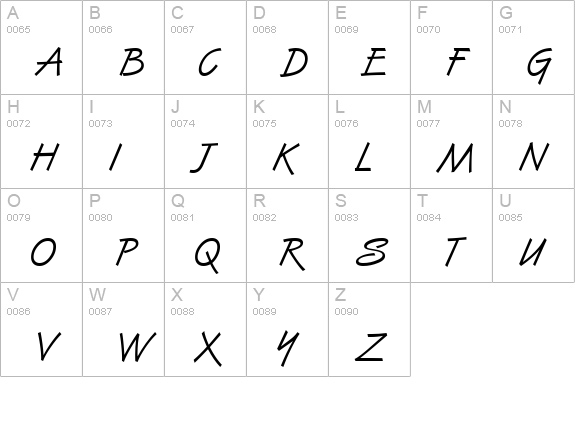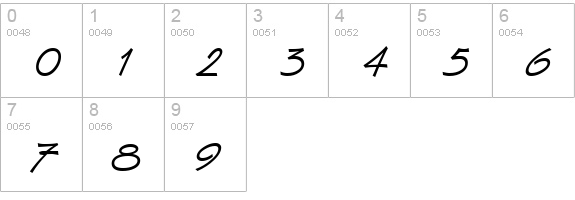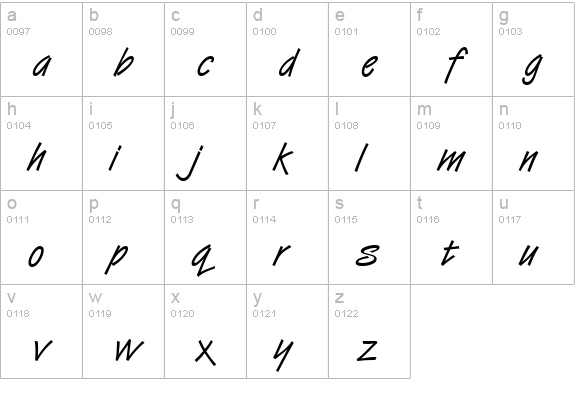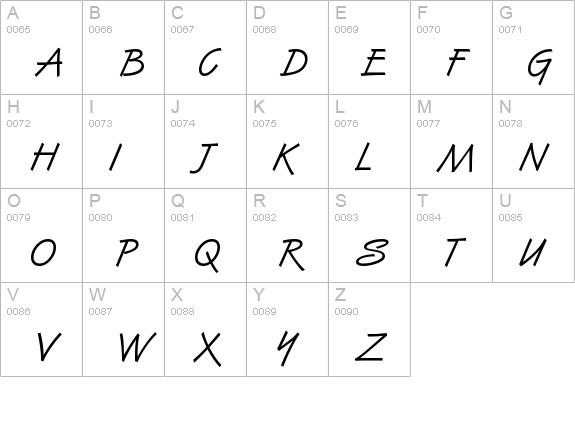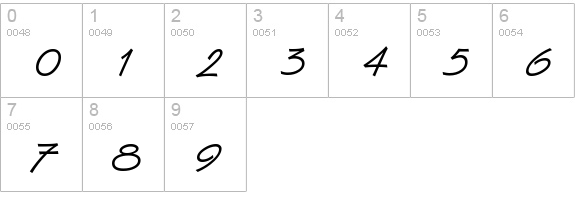
Van Dijk ICG Font Details
Van Dijk ICG is a stunning and versatile font that will add a touch of elegance and sophistication to any design project. With its delicate yet strong letterforms, this font is perfect for both headlines and body text, making it suitable for a wide range of applications. The unique and timeless design of Van Dijk ICG captures attention and creates a lasting impression. Each letter is meticulously crafted with intricate details and graceful curves, resulting in a harmonious and visually appealing typeface. Whether you are designing a logo, creating a website, or working on a print project, Van Dijk ICG will elevate your design to new heights. Its flexibility allows it to adapt to various design styles, from modern and minimalistic to classic and luxurious. One of the best parts about Van Dijk ICG is that it is freely available to download at FontsMarket.com. This means that you can easily access this remarkable font and incorporate it into your designs without any cost. The accessibility of Van Dijk ICG ensures that designers of all levels can benefit from its beauty and functionality. Don't miss out on the opportunity to enhance your design projects with Van Dijk ICG. Download it now from FontsMarket.com and experience the power of this exceptional font firsthand. Let Van Dijk ICG transform your designs into works of art that leave a lasting impression on your audience.